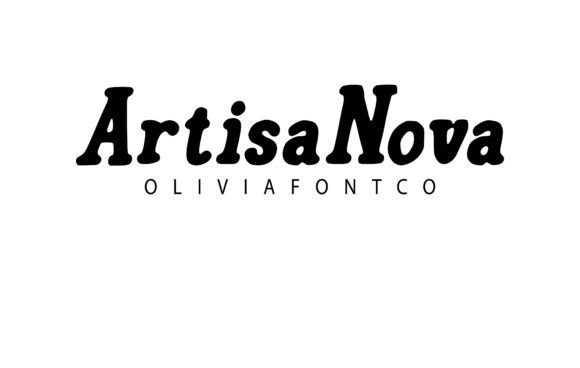
Introducing Artisanova Font: The Perfect Serif Font for Your Creative Projects
Are you looking for a font that can add a touch of elegance and sophistication to your creative projects? Look no further than Artisanova Font, an authentic serif font with a romantic touch. Designed to be a true favorite among designers and artists, this font has the potential to take your creative ideas to the highest level.
What Makes Artisanova Font Special?
Artisanova Font is a carefully crafted serif font that exudes a sense of classic charm and sophistication. Its unique design features make it perfect for a wide range of creative projects, from magazine headlines and social media graphics to branding, wedding invitations, and cards.
One of the standout features of Artisanova Font is its exceptional legibility. Whether you’re using it as a title or body text, this font is easy to read and understand, making it perfect for designs that require a clear and concise message.
The Benefits of Using Artisanova Font
So, why choose Artisanova Font for your creative projects? Here are just a few benefits of using this amazing font:
- Legibility: As mentioned earlier, Artisanova Font is extremely legible, making it perfect for designs that require a clear and concise message.
- Versatility: This font is suitable for a wide range of creative projects, from magazine headlines and social media graphics to branding, wedding invitations, and cards.
- Elegance: Artisanova Font has a classic, sophisticated look that adds a touch of elegance to any design.
- Romantic Touch: This font has a romantic touch that makes it perfect for designs that require a sense of whimsy and charm.
How to Use Artisanova Font in Your Designs
Artisanova Font is incredibly easy to use and can be incorporated into a wide range of creative projects. Here are a few ideas to get you started:
- Magazine Headlines: Use Artisanova Font to create eye-catching headlines for your magazine or publication.
- Social Media Graphics: Add a touch of elegance to your social media graphics with Artisanova Font.
- Branding: Use this font to create a cohesive brand identity that exudes sophistication and elegance.
- Wedding Invitations: Artisanova Font is perfect for wedding invitations, adding a touch of romance and whimsy to your design.
- Cards: Use this font to create beautiful, elegant cards for any occasion.
Tips for Getting the Most Out of Artisanova Font
To get the most out of Artisanova Font, here are a few tips to keep in mind:
- Experiment with Different Sizes: Artisanova Font looks great in a variety of sizes, so don’t be afraid to experiment to find the perfect size for your design.
- Pair it with Other Fonts: This font pairs well with a variety of other fonts, so try pairing it with different fonts to create a unique look.
- Use it Consistently: To create a cohesive look, use Artisanova Font consistently throughout your design.
In conclusion, Artisanova Font is an exceptional serif font that is perfect for a wide range of creative projects. Its unique design features, exceptional legibility, and elegant look make it a great choice for designers and artists looking to add a touch of sophistication to their work. Whether you’re creating magazine headlines, social media graphics, branding, wedding invitations, or cards, Artisanova Font is sure to become a favorite in your design arsenal.